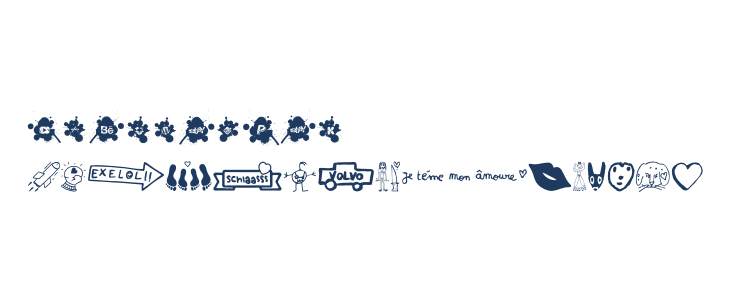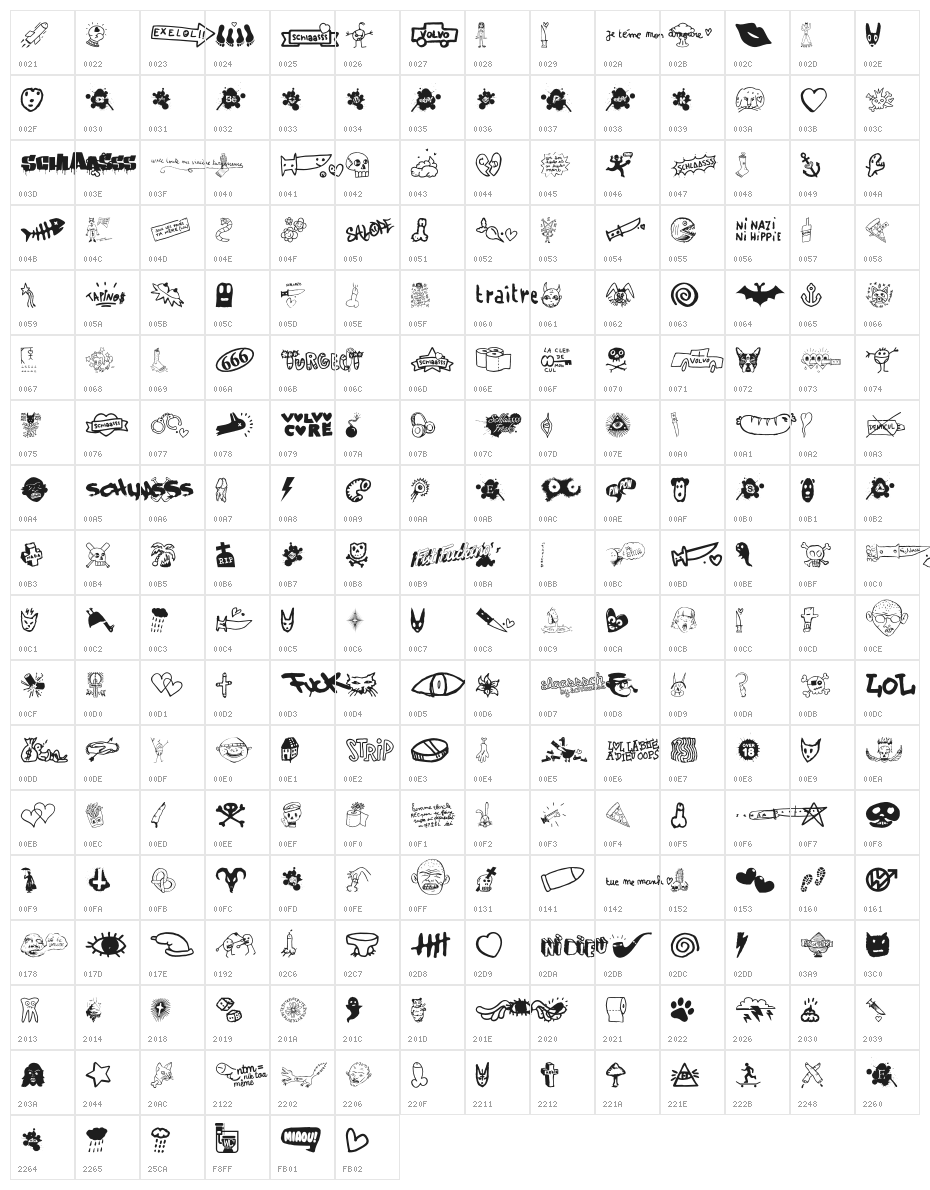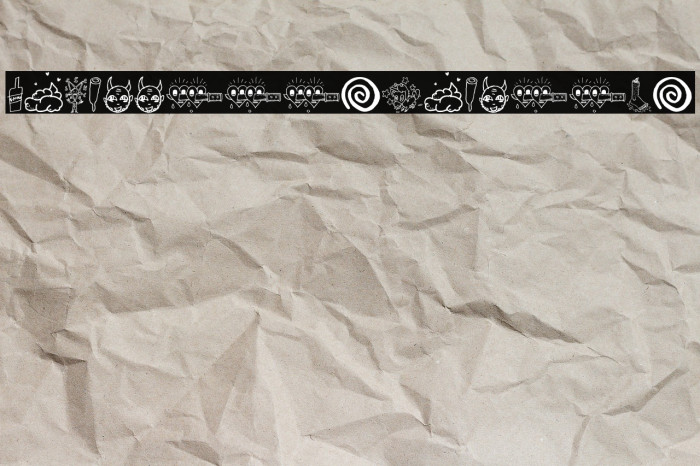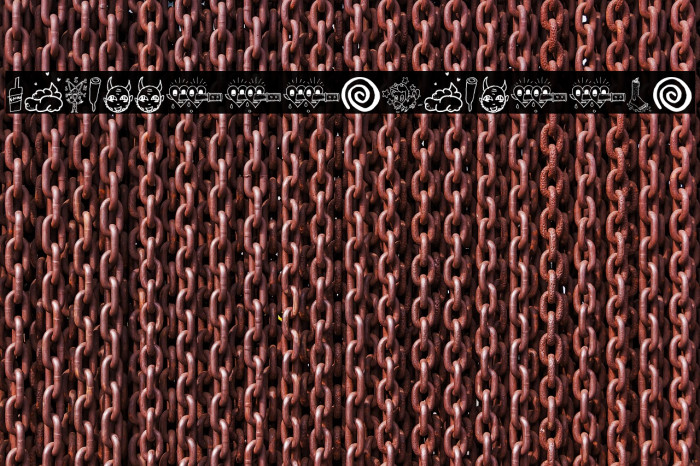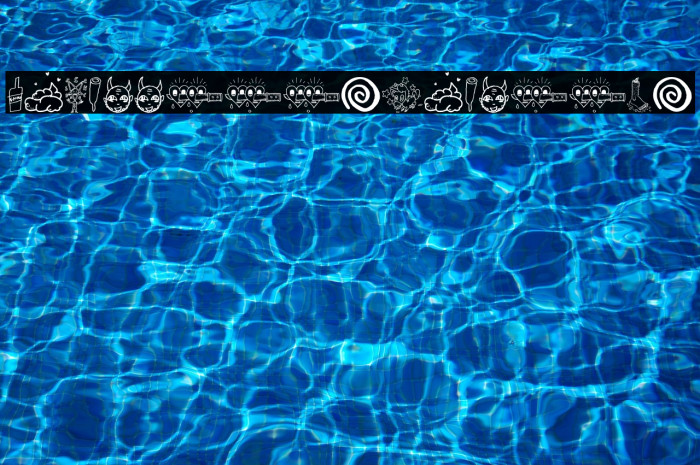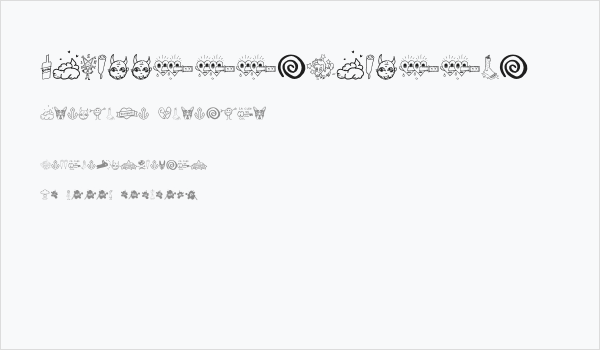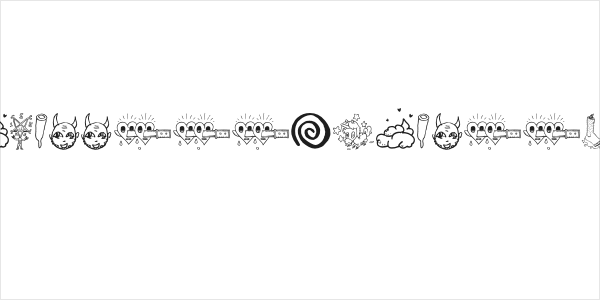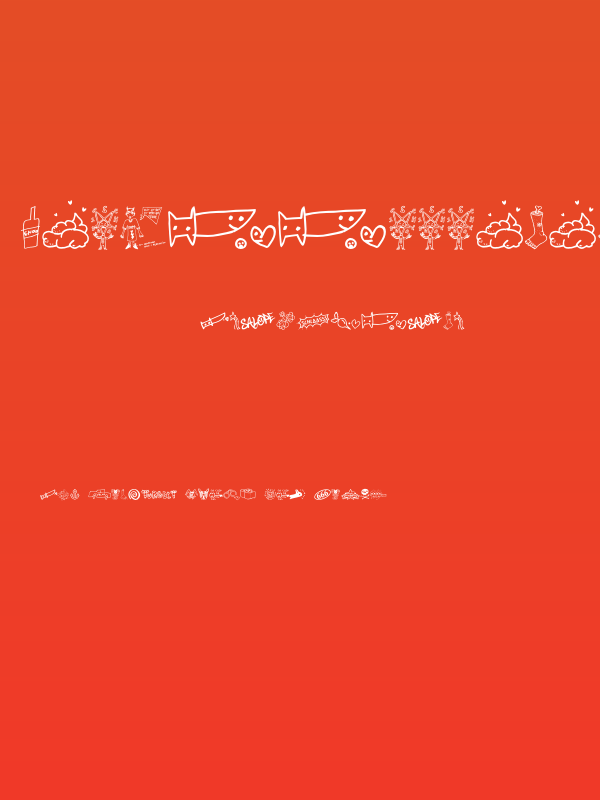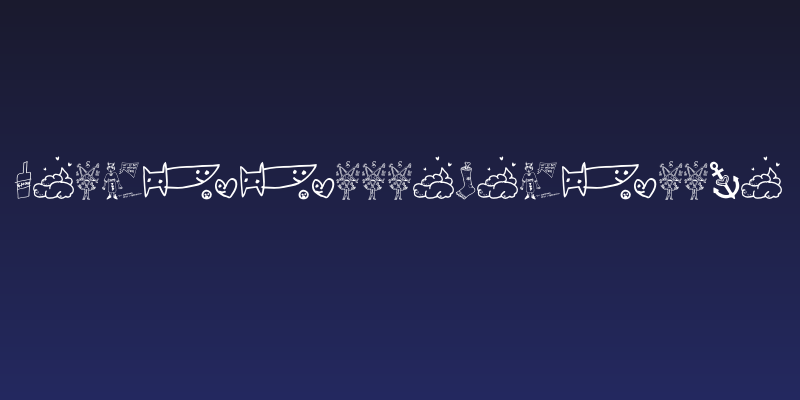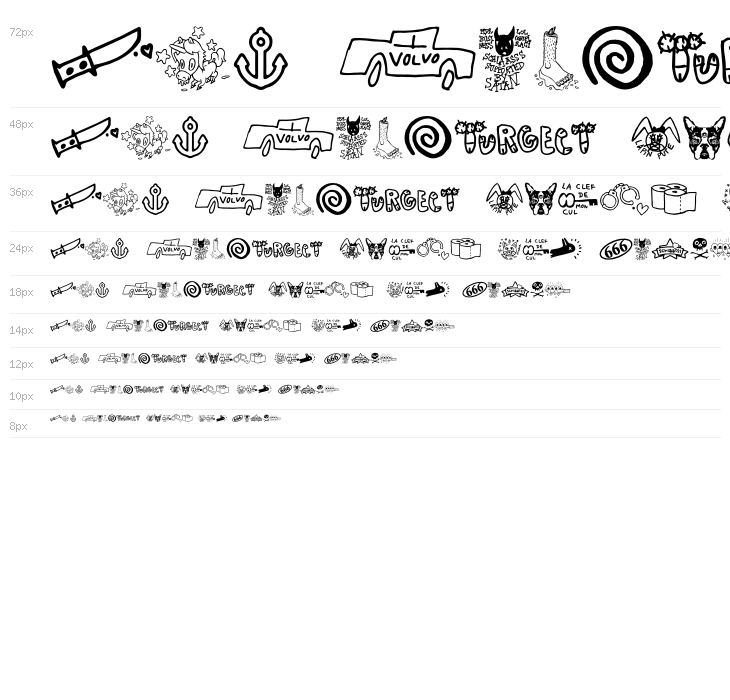
WCSlaassschClassic Font
WCSlaassschClassic Description
A highly decorative and playful collection of hand-drawn doodles, icons, and cartoon-style lettering with a rough, sketchy appearance. The characters are interspersed with various illustrations, making it more of a dingbat or pictogram set than a traditional font. The style is informal, expressive, and chaotic, with uneven line weights and spontaneous forms.
| Overall Style | Decorative, Playful, Hand-drawn, Punk |
| Use Case | Logos, Posters, Stickers, Artistic projects, Non-traditional headlines |
| Proposed Projects | Zines, punk posters, alternative album covers, DIY crafts, stickers, underground comics, event flyers. |